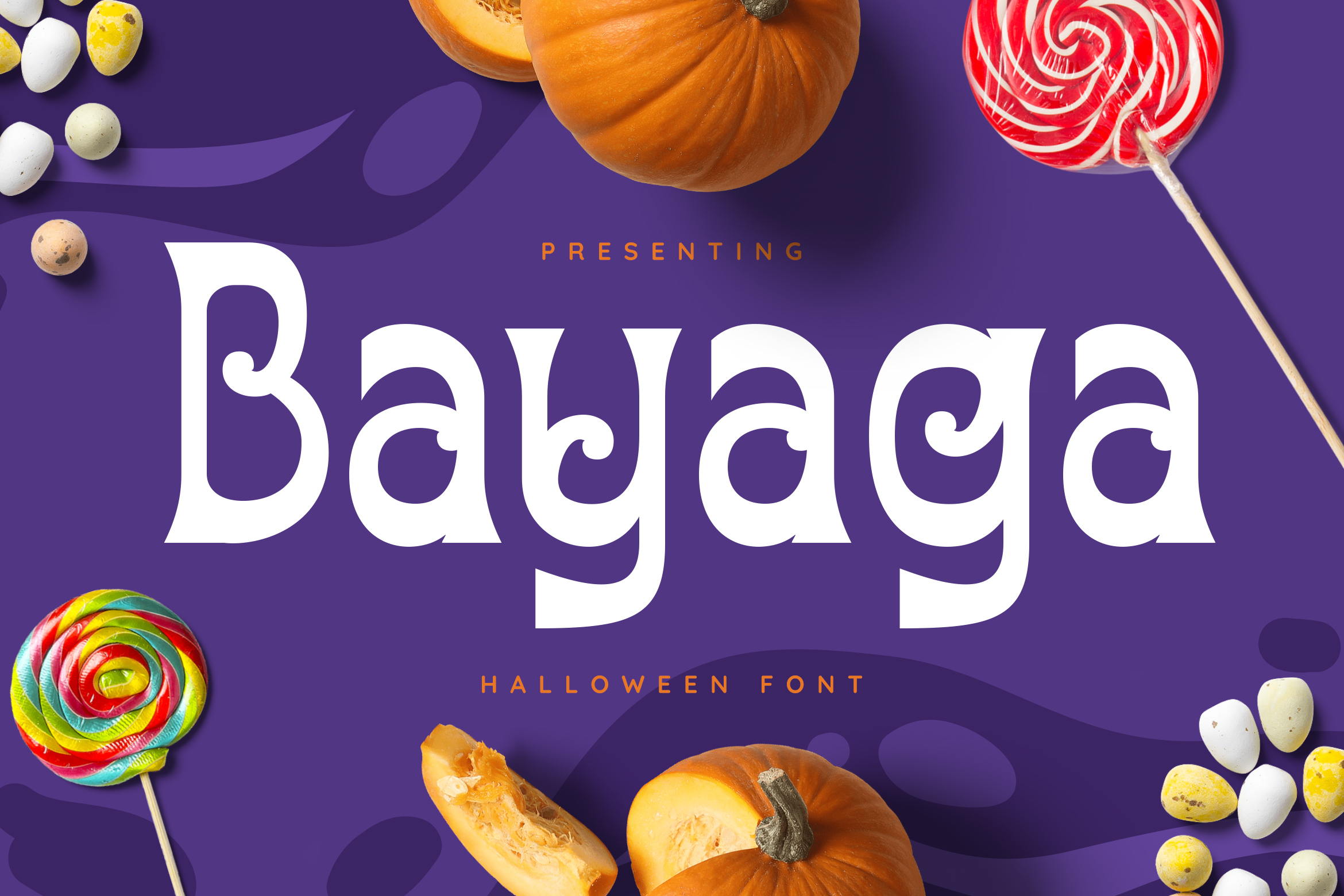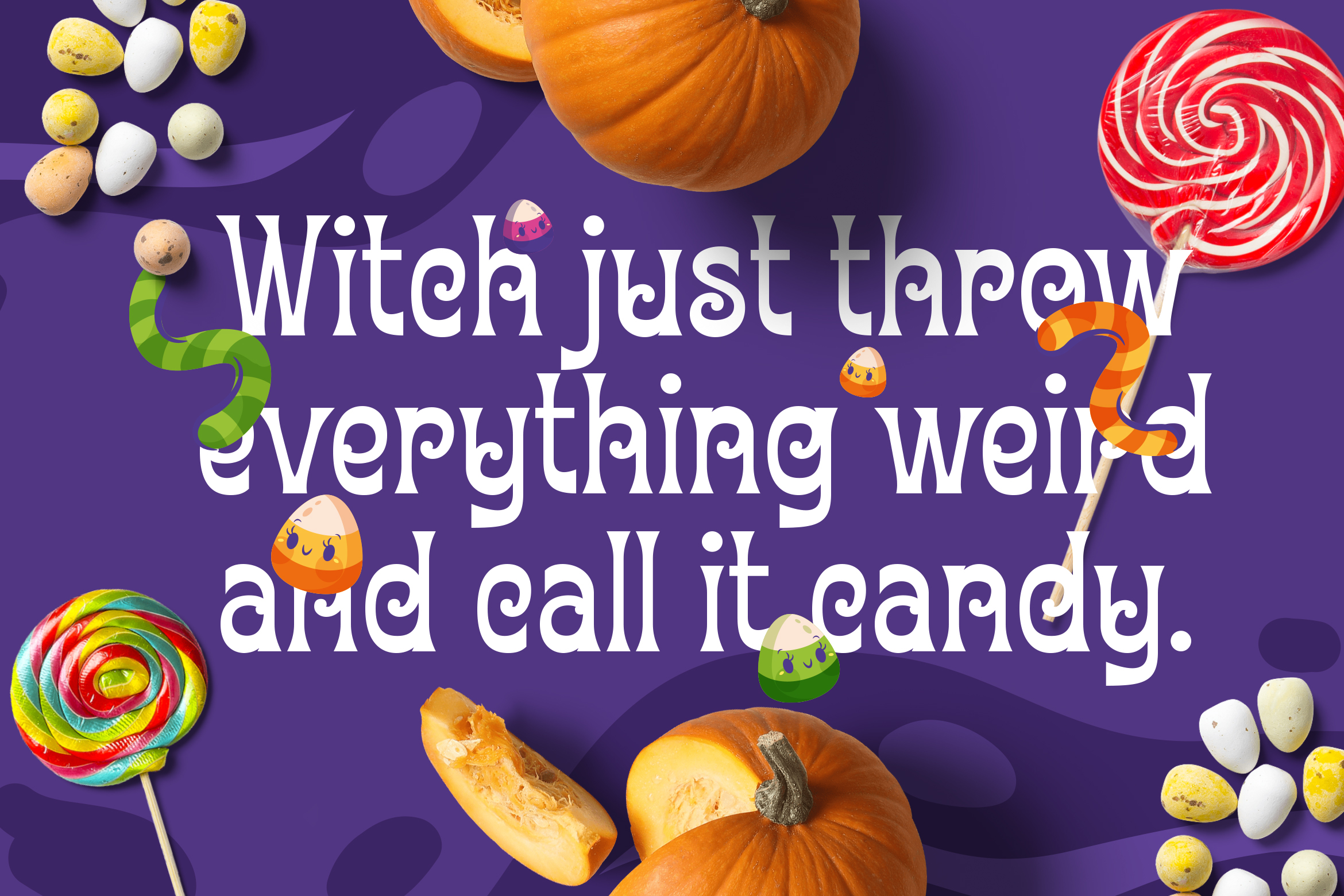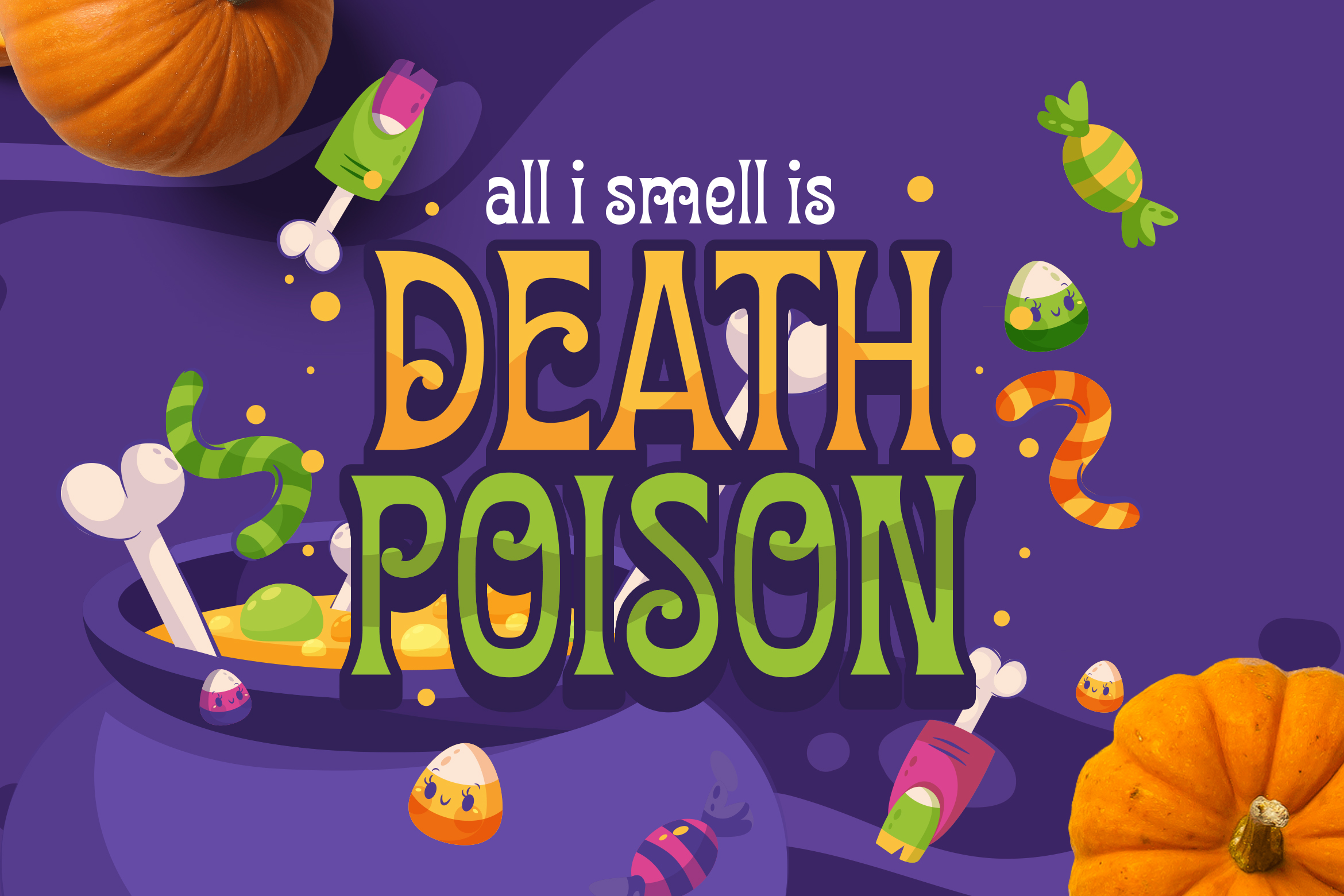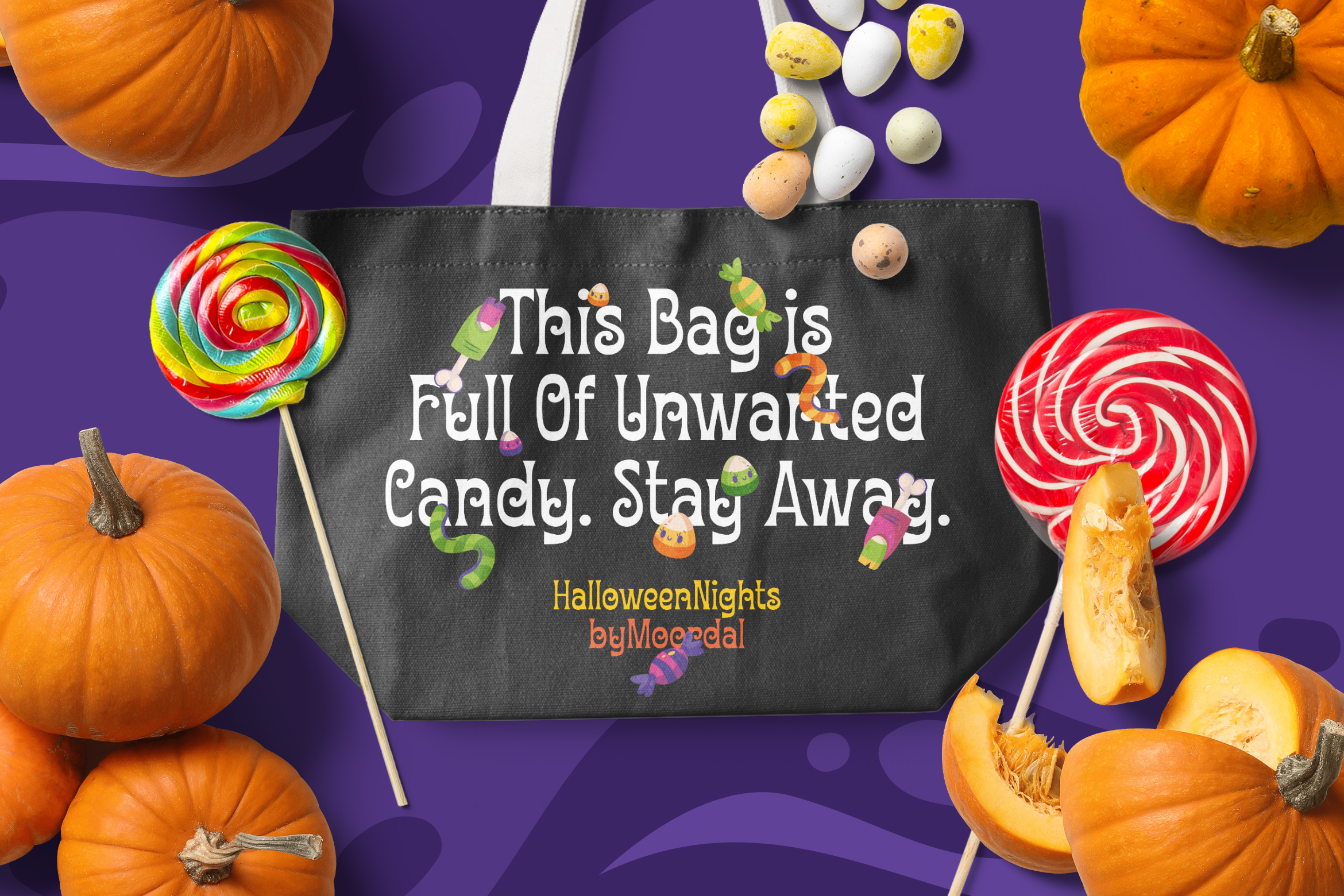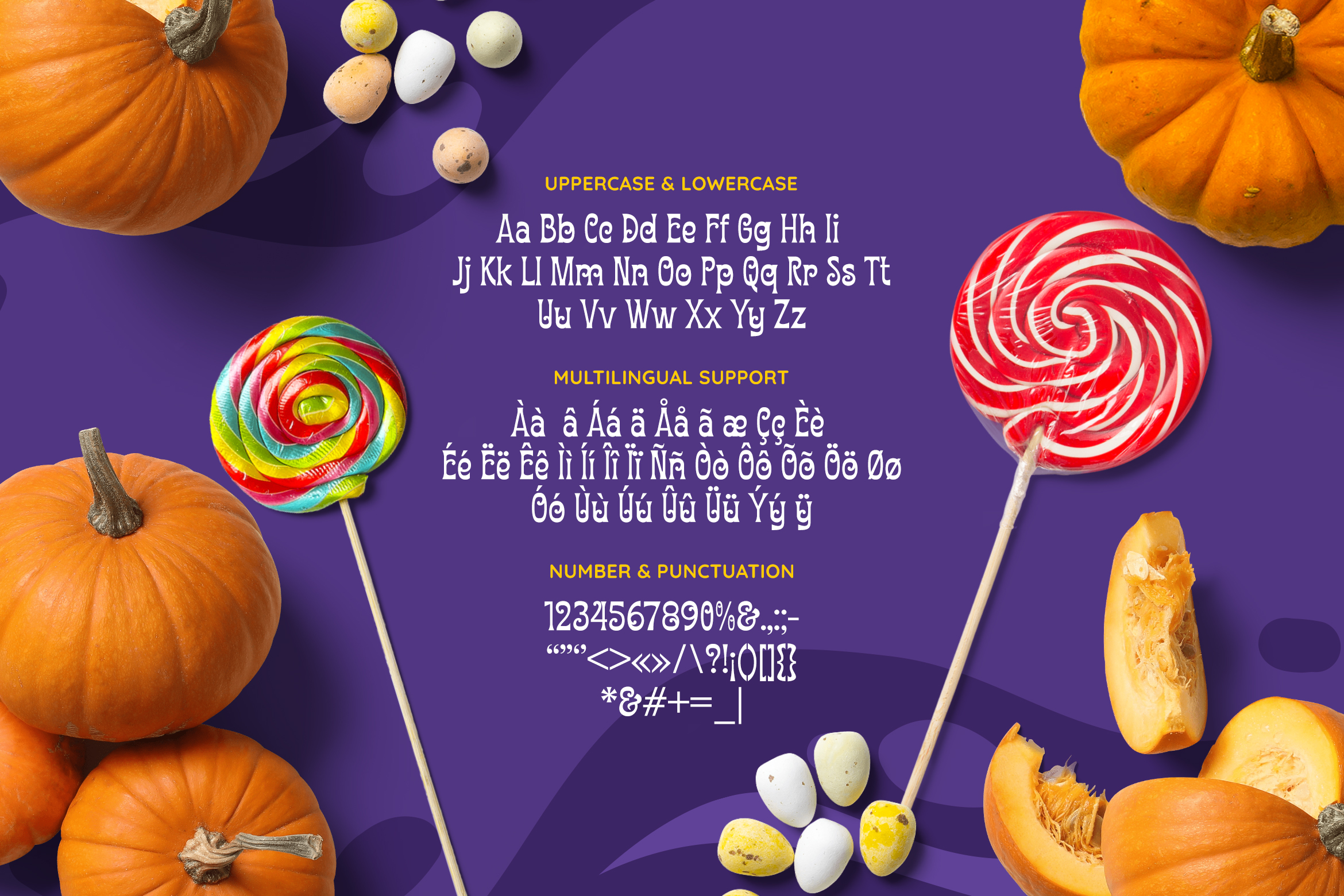
Bayaga is a quirky and spooky Halloween font that blends playful gothic shapes with whimsical swirls. Its tall, sharp serifs and charming curves bring a unique personality that feels both magical and mischievous. Perfect for candy packaging, Halloween party posters, trick-or-treat bags, spooky quotes, and fun merchandise. Bayaga offers a well-balanced mix of spooky and sweet, ideal for family-friendly seasonal designs.
Complete with uppercase and lowercase letters, multilingual support, punctuation, and numbers, Bayaga gives you everything you need for expressive and dynamic Halloween projects. Whether you’re designing eerie graphics or cheerful monster themes, this font adds the perfect festive twist to your typography.
Bayaga